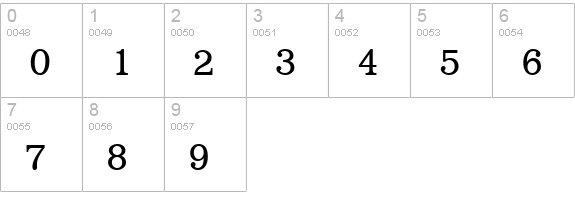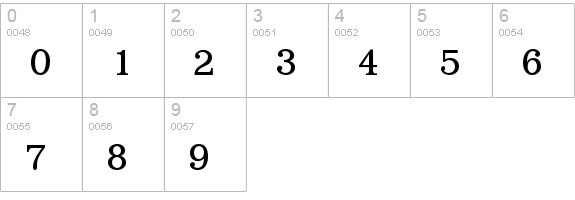
I770-Roman-Regular Font Details
I770-Roman-Regular is the standard, neutral variant in the I770 typeface family \xE2\x80\x94 well suited to general body text, paragraphs, and standard typographic work.
The I770 Roman Regular font is a versatile and classic typeface that exudes elegance and sophistication. With its clean lines and timeless design, this font is perfect for a wide range of projects, from branding to editorial design. The I770 Roman Regular font is easy to read and has a distinct presence that commands attention. What's even better is that this font is available for free download at FontsMarket.com. You can easily access this high-quality font and enhance your projects with its stylish and professional look. Whether you're working on a website, poster, or logo design, the I770 Roman Regular font will elevate your work and make a lasting impression. Download it today and start creating beautiful designs with this exceptional font.